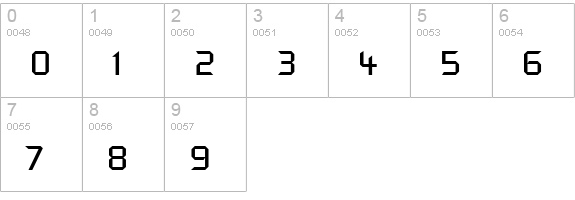
Control Freak Font Details
Control Freak font is a bold and modern typeface that exudes confidence and authority. Its sharp edges and clean lines give it a sleek and professional look, making it perfect for headlines, logos, and other design projects that require a strong visual impact. The unique character of Control Freak font commands attention, making it an ideal choice for those who want to stand out from the crowd. The best part about Control Freak font is that it is available for free download at FontsMarket.com. This means that you can easily access this eye-catching typeface without any cost, allowing you to elevate your designs without breaking the bank. Whether you're a graphic designer, a marketer, or a creative individual looking to add some flair to your projects, Control Freak font is a versatile and reliable choice that won't disappoint. Download it today and take your designs to the next level!